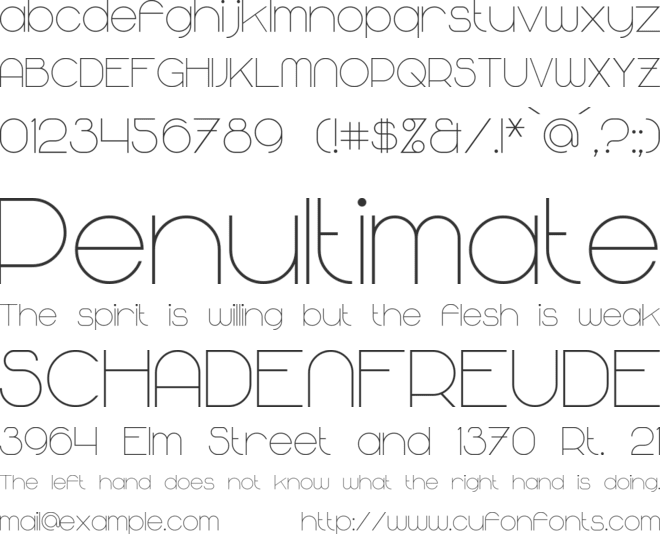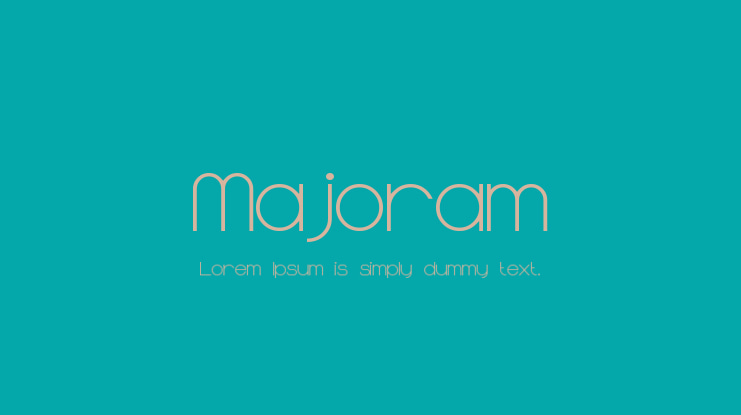
Majoram Font Family
Neale Davidson
A thin, curved font that mimics the common and popular typesetting of mid 1970's art-deco look. Includes full alphabet, Euro, and accented characters. Includes bold, italic, and sans versions.